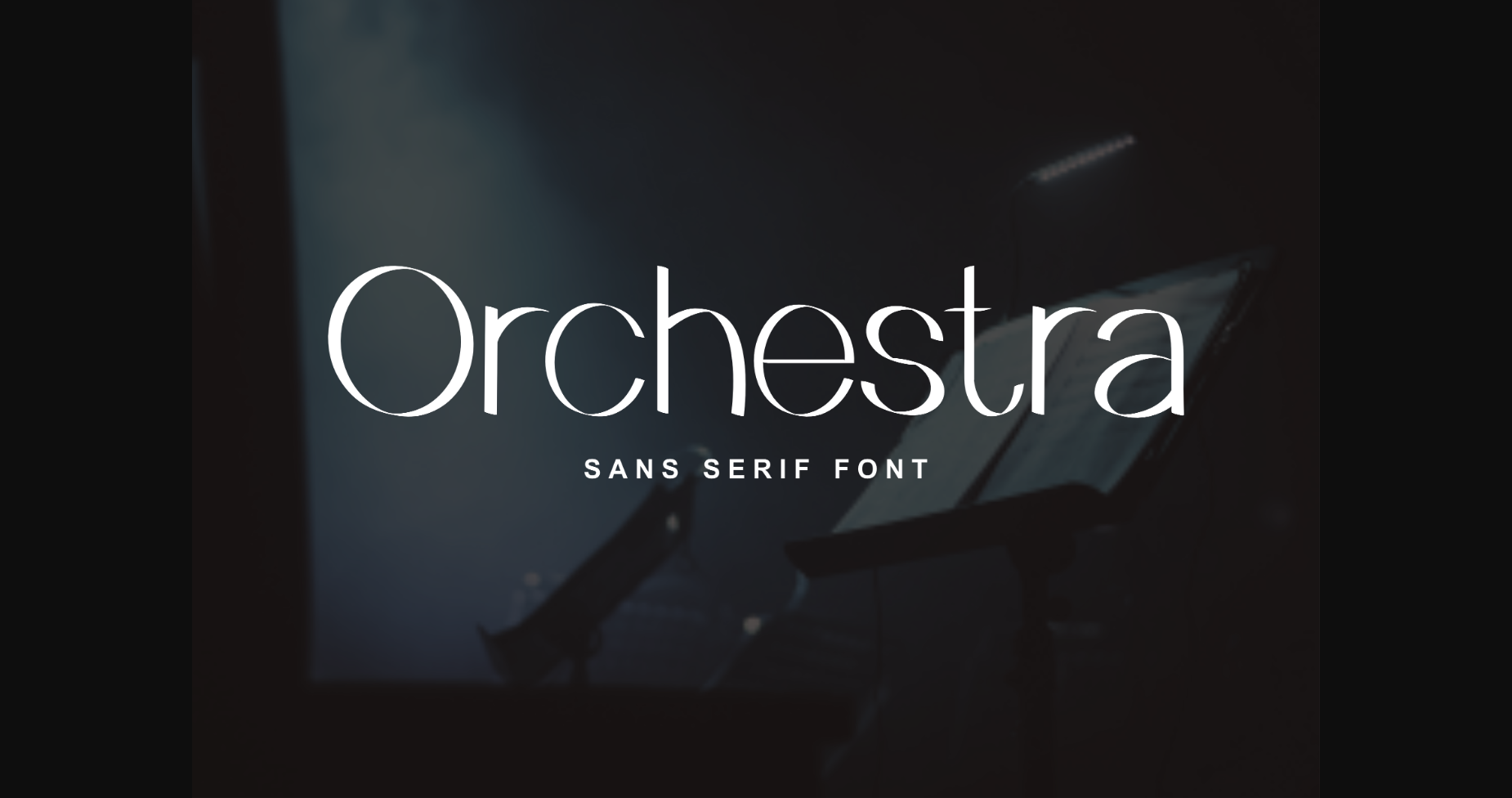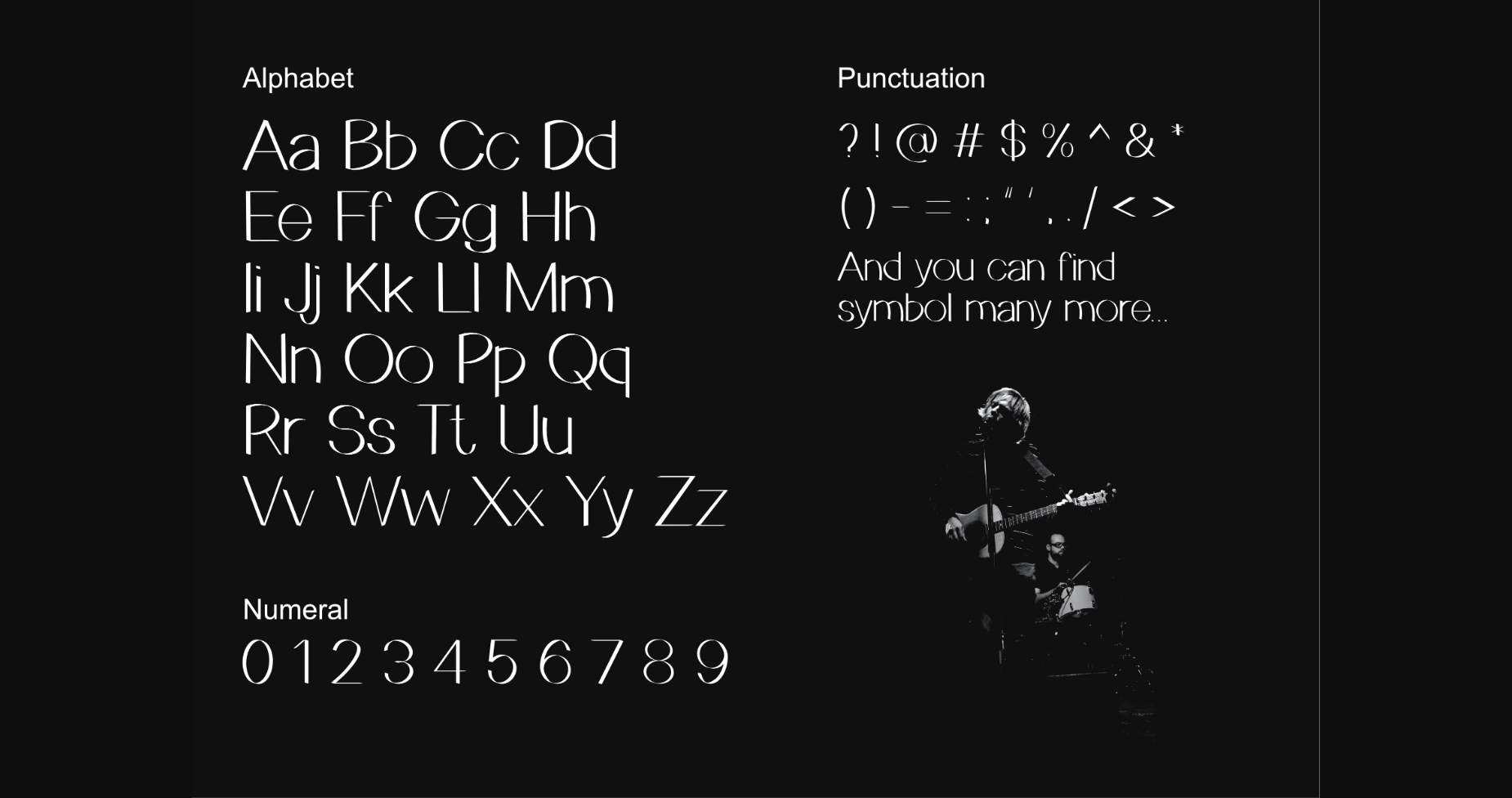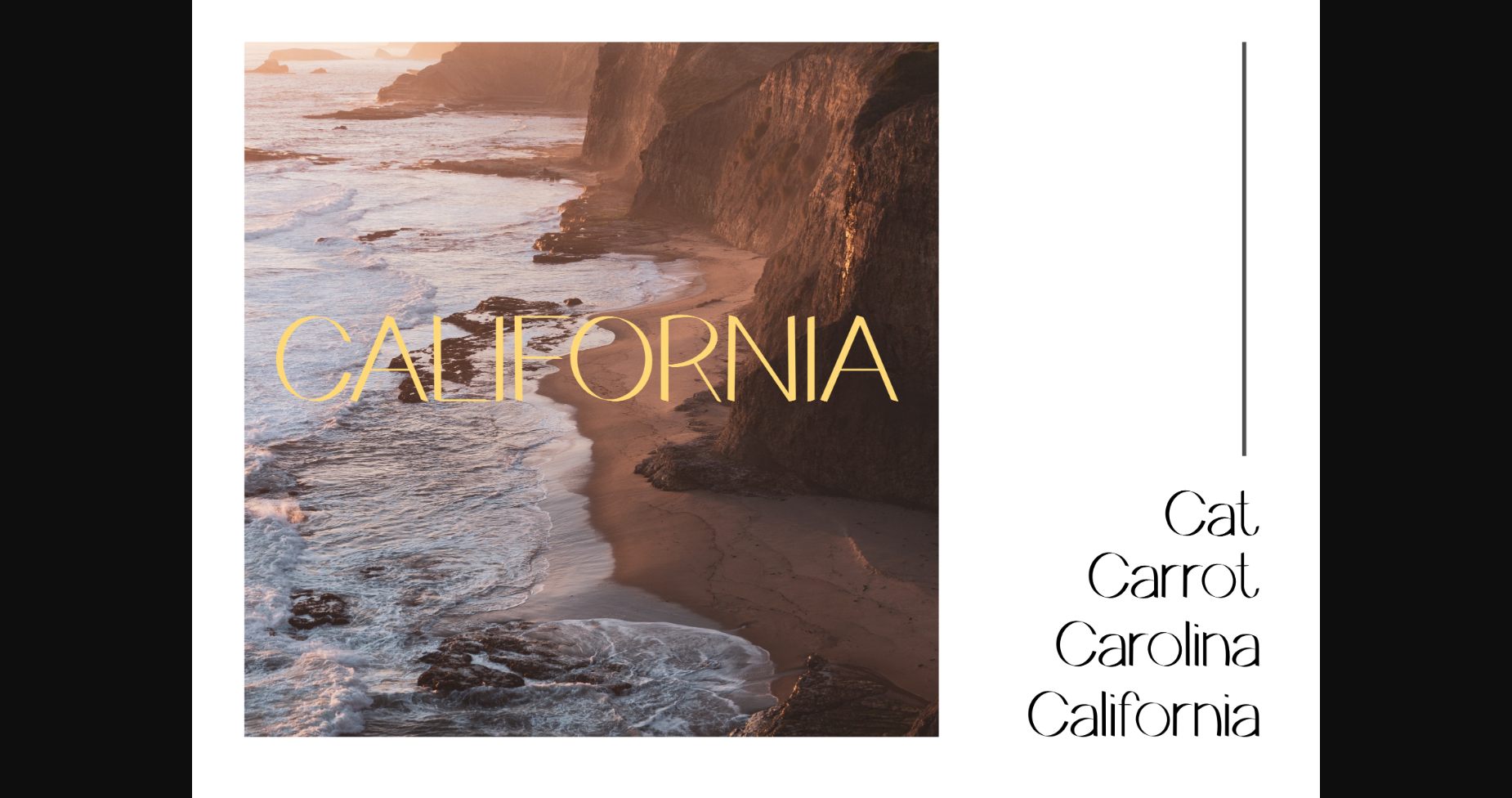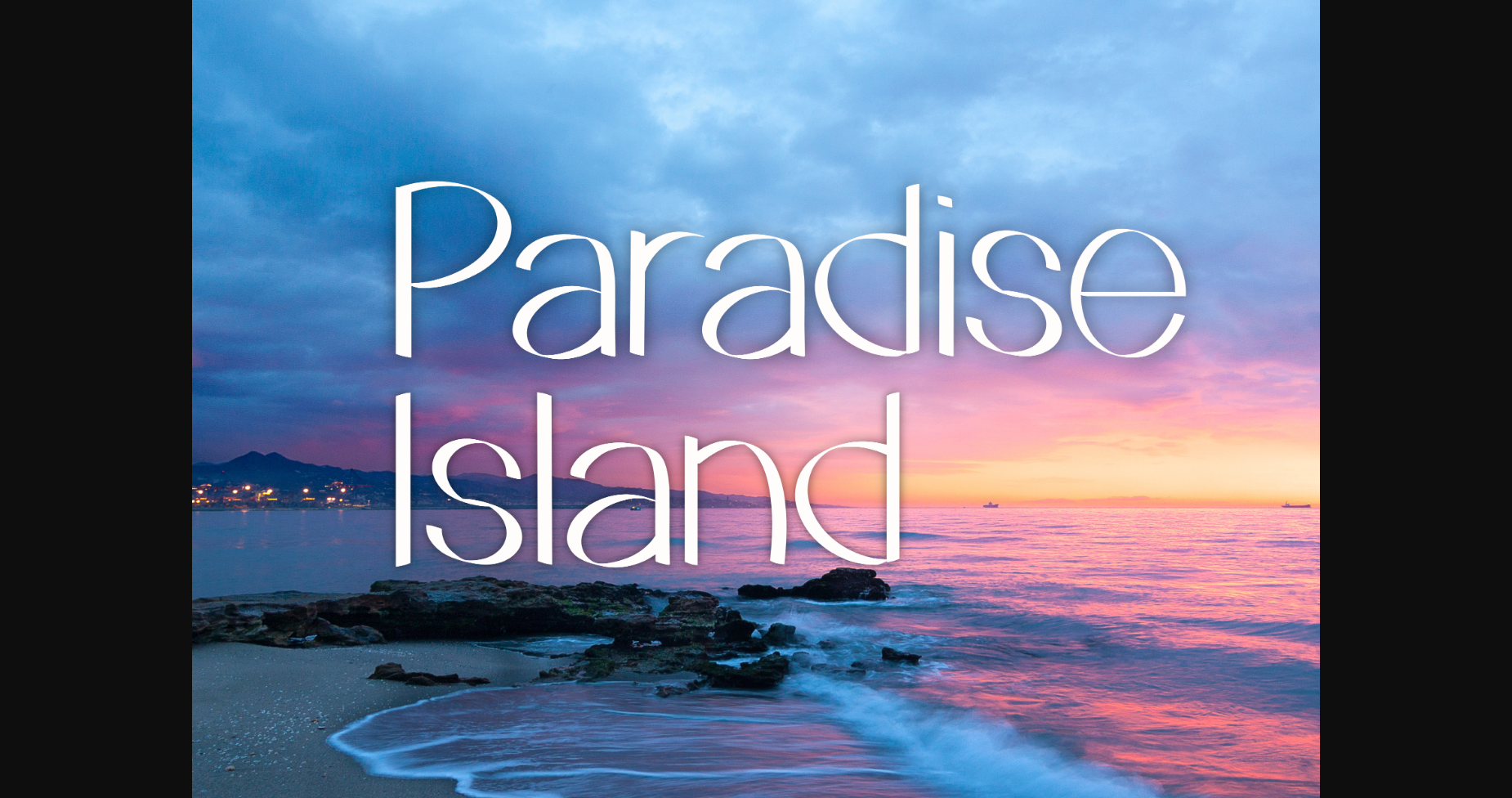
Orchestra Font
About Orchestra Font
Orchestra is a cool lettered sans serif typeface. This typeface can be used for branding, posters, apparel, merchandise, stickers, or anything that needs a spicy, unique look.